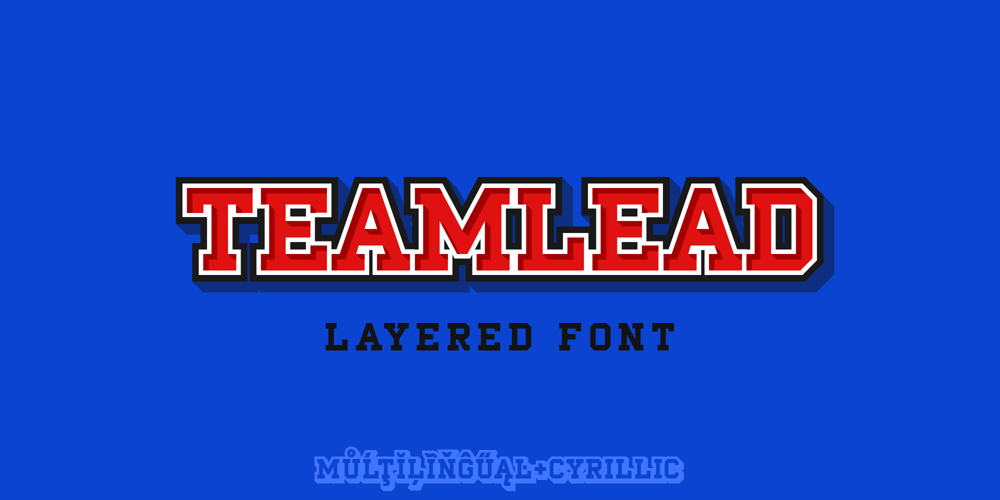
Team Lead Font Family was designed by Dmytro Poliakh and published by Sentavio. Team Lead contains 5 styles and family package options. TeamLead Layered FontTeamLead is an authentic sports branding font of Five Layers (see the preview image #3). It is perfect for sports logos, posters, apparel design, labels and much more.Multilingual support (LatinPro & Slavian Cyrillic).